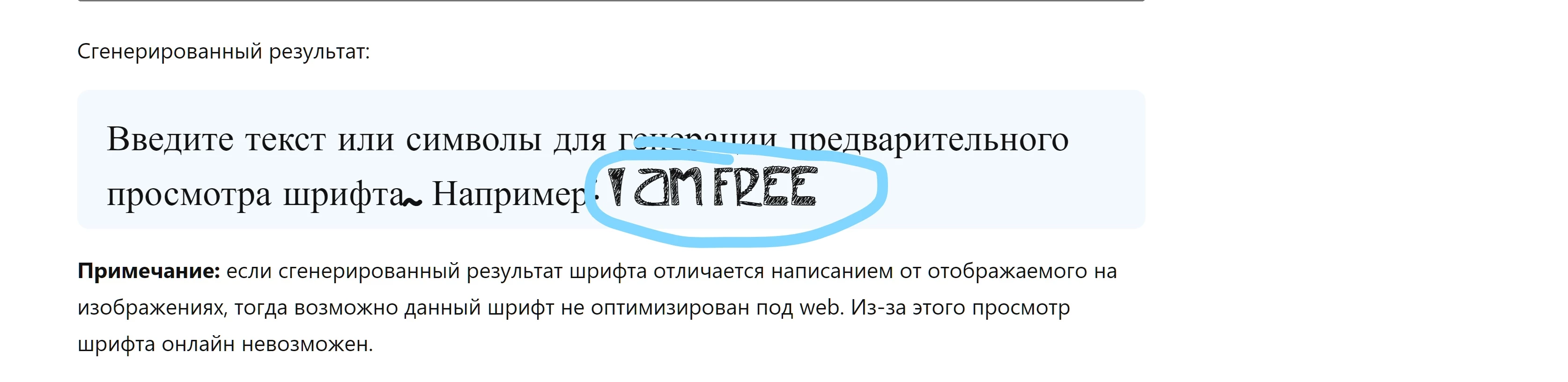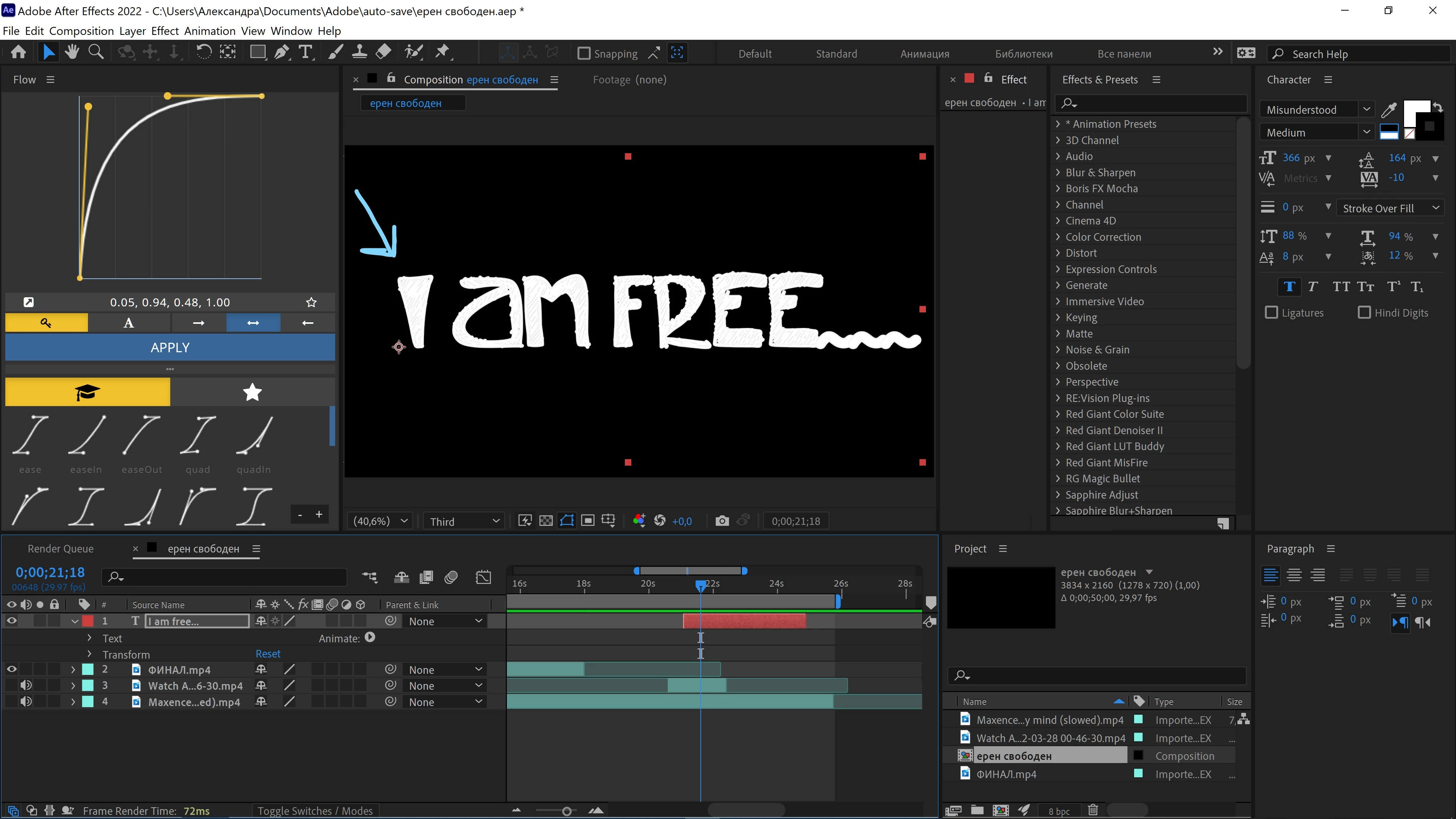
the downloaded font is different from the example
I downloaded a specific font that is shown in the first photo. you can see that it has a "texture",
but the problem is that when I apply it in a project, all that texture disappears.
what could be the problem?
Try disabling the Faux Bold (bold "T" icon) at the bottom in the Character panel.